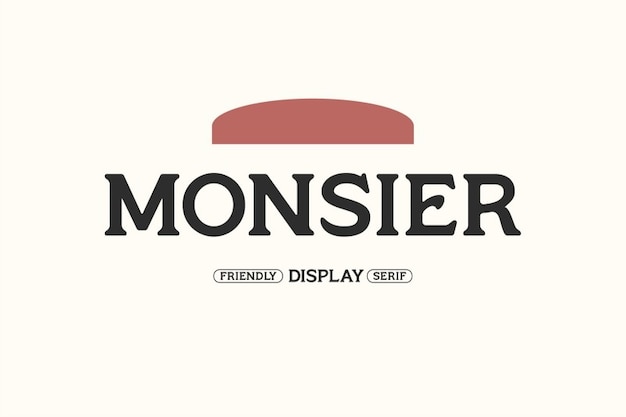
Monsier Font
It is your friendly, go-to font for an effortlessly classic and stylish look. With its timeless charm, it strikes the perfect balance between traditional elegance and modern simplicity. Whether you're crafting invitations, creating a logo, or designing a poster, "Monsieur" brings that touch of sophistication that makes everything look effortlessly stylish. It's a versatile choice that adds a dash of classic flair to any project, making your designs both inviting and timelessly appealing.